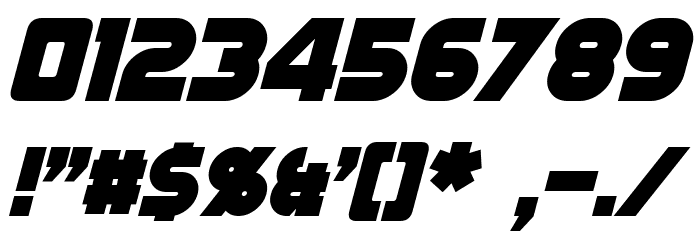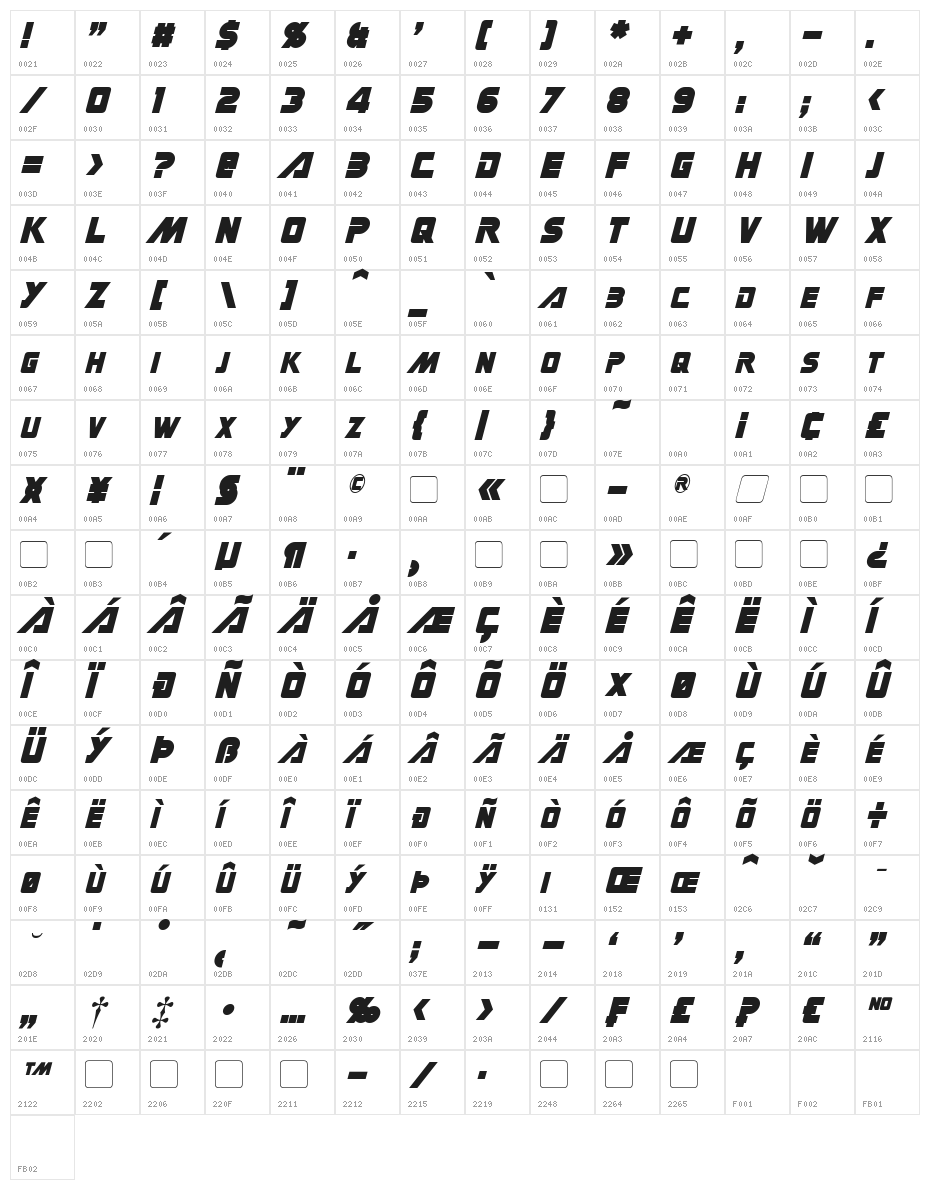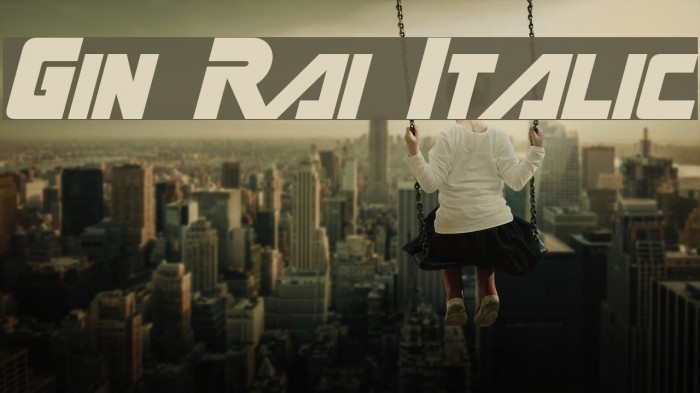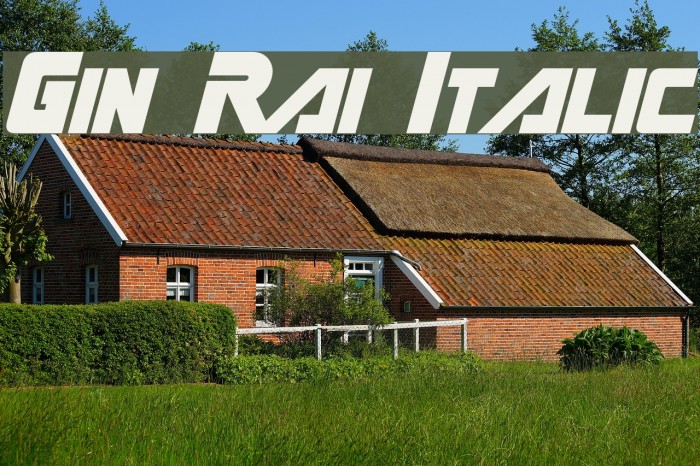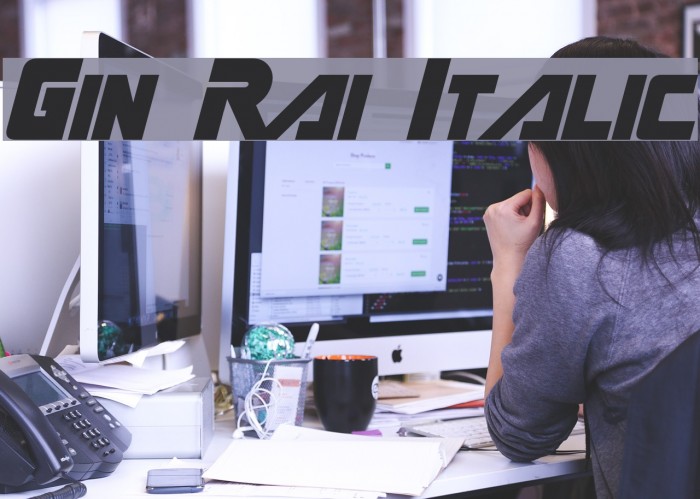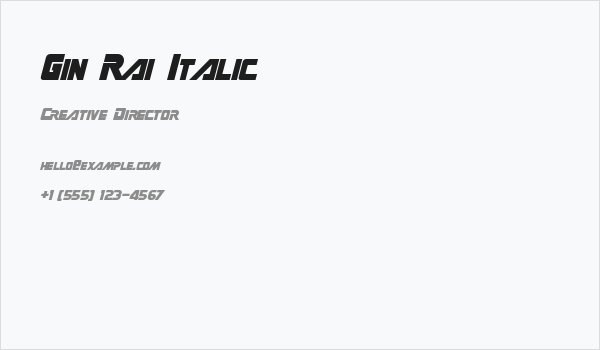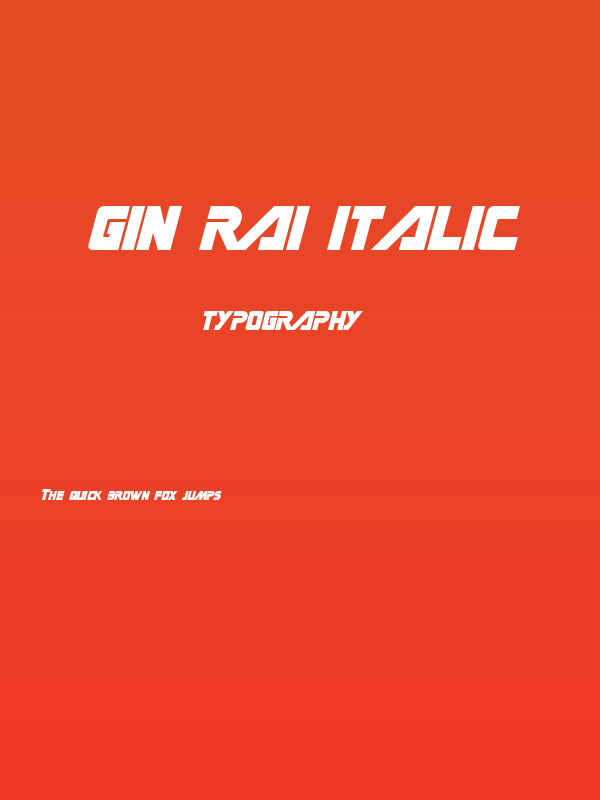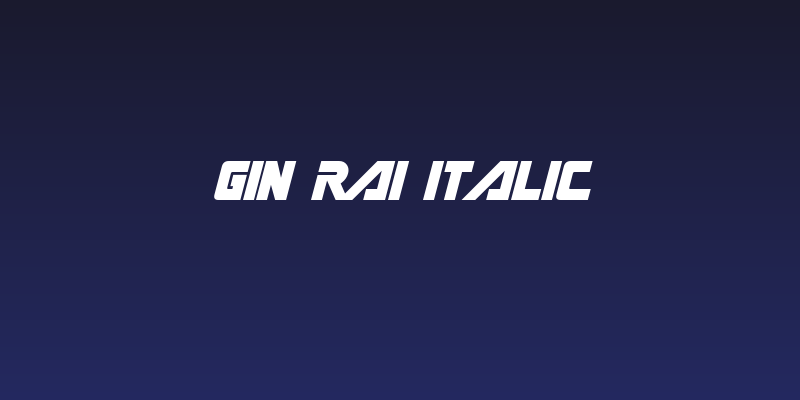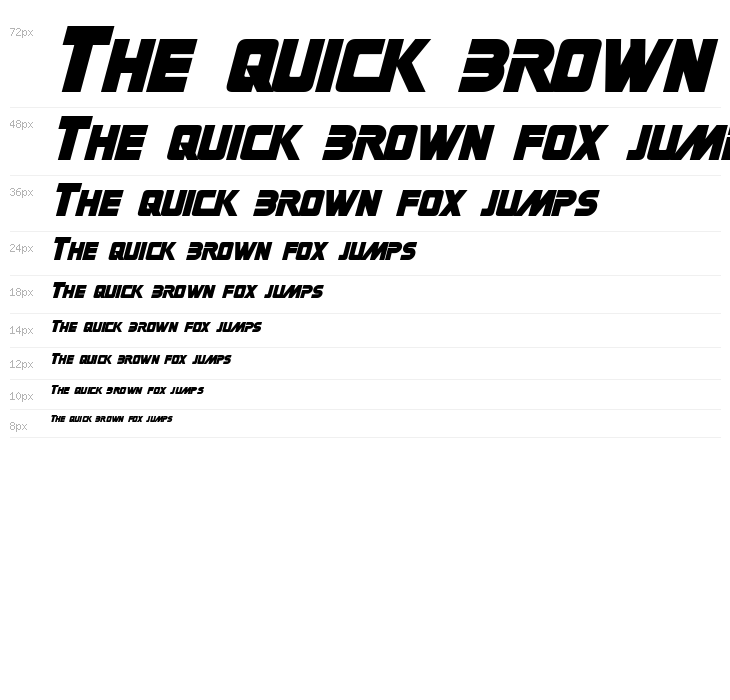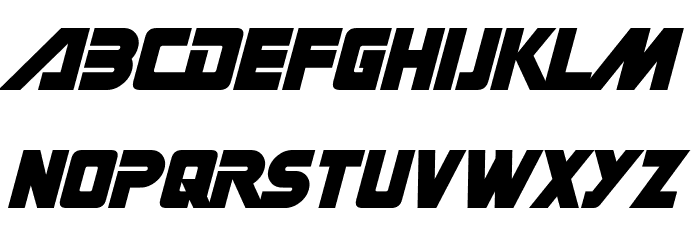
Gin Rai Italic Font
Gin Rai Italic Description
This font features a bold, italicized style with a modern and dynamic appearance. The characters are sharply angled, giving a sense of motion and speed. The strokes are thick and consistent, providing a strong visual impact. The uppercase and lowercase letters maintain a uniform width, contributing to a cohesive look. Numbers and special characters are designed with the same boldness and angularity, ensuring consistency across all glyphs. This font is well-suited for projects that require a contemporary and assertive aesthetic.
| Proposed Projects | Ideal for sports branding, automotive designs, tech-related projects, and dynamic headlines. |